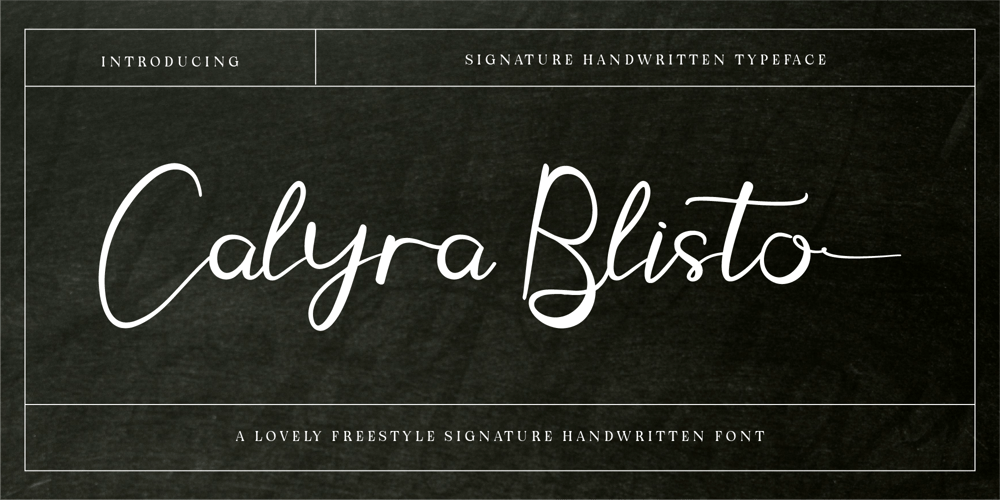
CF Calyra Blisto Font Family was designed by Gilang Mei Nugraha, Frederik Aristaputra and published by Creatifont Studio. CF Calyra Blisto contains 2 styles and family package options. Calyra Blisto is a charming freestyle handwritten font that embodies the spirit of creativity and freedom. Its naturally inconsistent strokes give it a dynamic, hand-drawn feel that radiates authenticity and charm. This font exudes a sense of warmth and approachability, making it perfect for designs that aim to capture a personal or heartfelt touch. Whether for invitations, branding, quotes, or social media content, Calyra Blisto adds a playful yet elegant flair, making your projects truly unique.A SUMMARY OF WHAT’S INCLUDED:- Standard Character A-Z, a-z, 0-9, Punctuation & symbols- Regular and Italic- Multilingual Support- Works on PC & Mac- Simple installation- Accessible in Adobe Creative Suite (Ai, Ps, Id, etc.) even work on Microsoft Word.- PUA Encoded Characters – Fully accessible without additional design software.🌟If you come across any issues or notice anything we might have overlooked while using this product, please feel free to reach out to us. We greatly value your feedback as it helps us enhance and refine our products. Thank you!